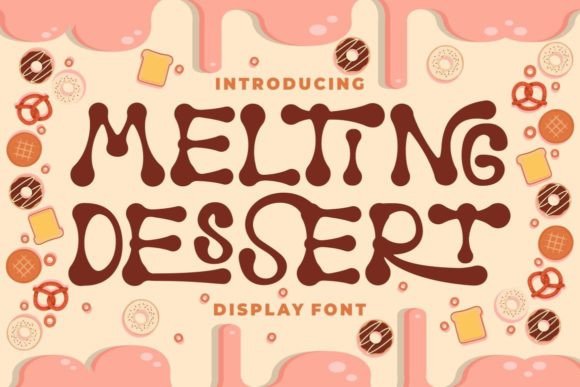
Melting Dessert Font
Journey into a delectable world of typography with Melting Dessert Font, the display font that tantalizes your senses with its charm and playfulness. Designed by the creative genius of putracetol, Melting Dessert is a visual treat for anyone seeking a font that oozes personality and uniqueness.
This enchanting font family captivates with its friendly and cute vibe, inviting you to explore a world of whimsical and captivating designs. Its casual style dances across your screens, adding a touch of magic to every project it graces. Whether you're crafting birthday invitations, designing cheerful posters, or creating social media graphics that pop, Melting Dessert Font is your perfect companion.
Indulge in the sweetness of this font's meticulously crafted glyphs and ligatures, effortlessly accessible through PUA encoding. Experiment with a kaleidoscope of design possibilities, letting your imagination run wild as you create projects that drip with creativity and charm.
With Melting Dessert Font, your designs will transcend the ordinary and ignite a symphony of smiles. Its playful nature enchants viewers, leaving them craving more of its delightful presence. Dive into the world of Melting Dessert Font today and unlock a treasure trove of design possibilities that will leave your audience utterly smitten.